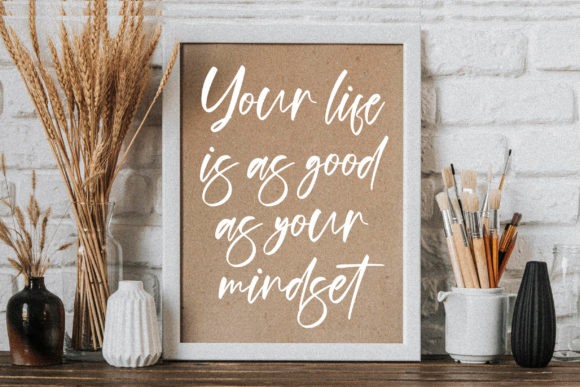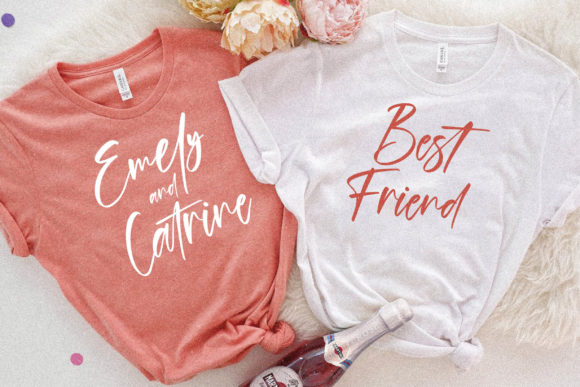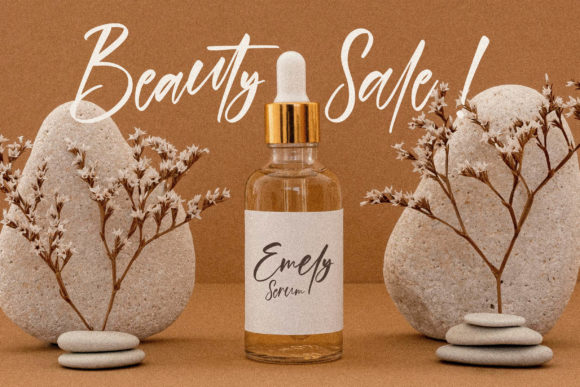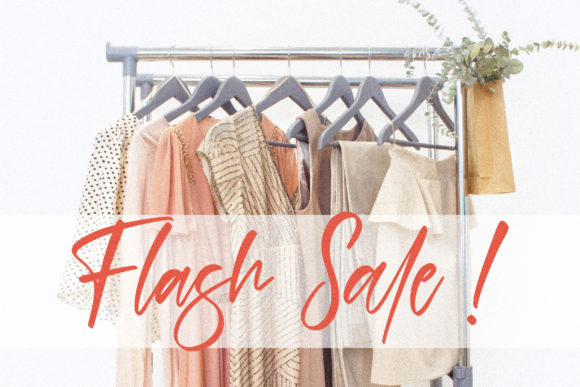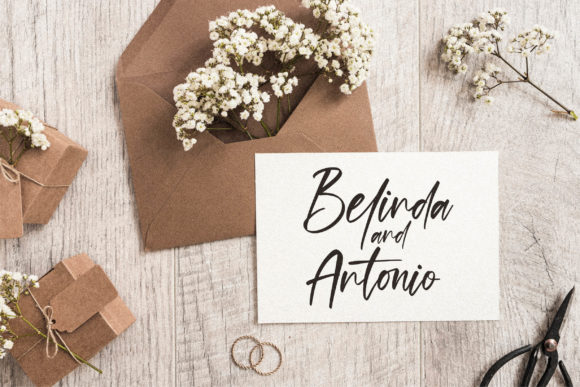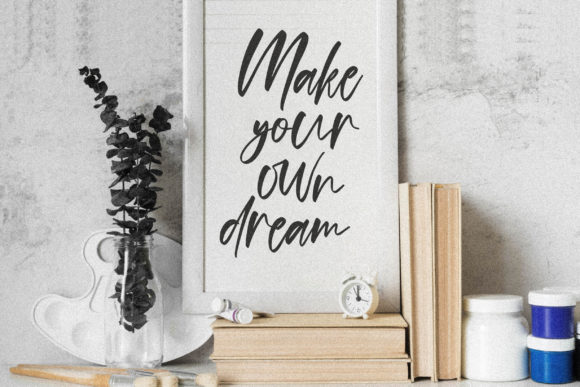
The Whimsical World of Cantika Prilia Font
I’ll never forget the time I was working on a project for a client who wanted a font that was both playful and elegant. I had spent hours scouring the internet for the perfect font, but nothing seemed quite right. That was until I stumbled upon Cantika Prilia Font. This whimsical script font with a relaxed theme has been a game-changer for my design work, and I’m excited to share its magic with you! ✨
An Honest Review of Cantika Prilia Font
- ✨ Lovely, flowing script style that’s perfect for creative projects
- ✅ Highly versatile and can be used for a wide range of topics and themes
- 💫 Beautifully crafted to add a touch of elegance and whimsy to any design
- 🎨 Works well with both digital and print designs
While Cantika Prilia Font is an amazing addition to any font library, there are a few things to keep in mind: 🤔
- ⚠️ Some of the letters may be a bit too ornate for very small font sizes
- ⚠️ May not be the best choice for very formal or corporate designs
A Practical Guide to Using Cantika Prilia Font
The Story Behind Cantika Prilia Font
Cantika Prilia Font was designed with the intention of creating a beautiful, elegant script font that’s perfect for creative projects. The designer wanted to create a font that would add a touch of whimsy and playfulness to any design, while still maintaining a level of sophistication and elegance.
Q: What type of projects is Cantika Prilia Font best suited for?
A: Cantika Prilia Font is perfect for creative projects, such as branding, packaging, and advertising. It’s also great for digital and print designs, including social media graphics, flyers, and brochures.
Q: Is Cantika Prilia Font easy to read?
A: Yes, Cantika Prilia Font is designed to be easy to read, even at smaller font sizes. However, some of the letters may be a bit more ornate, so it’s best to use it at larger font sizes for maximum impact.